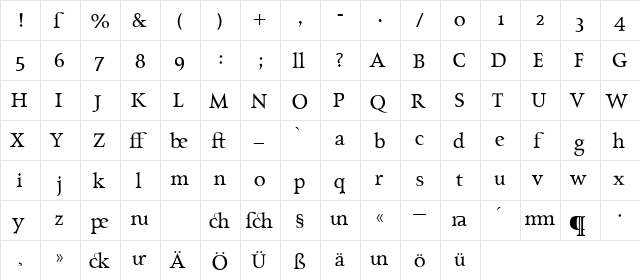
Charpentier RenaissanceIF
Design Context for Charpentier Typeface
Charpentier is a composed and adaptable typeface that performs quietly and consistently across a wide range of design contexts.